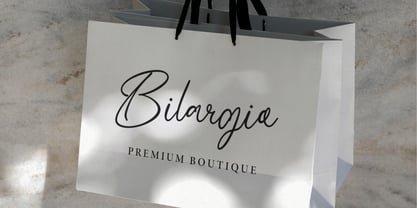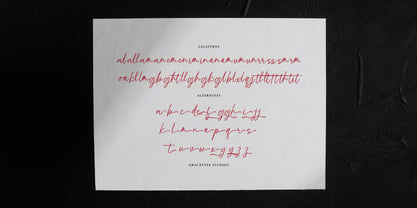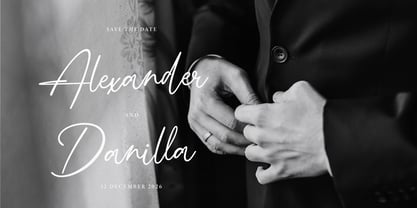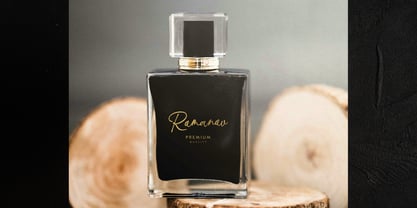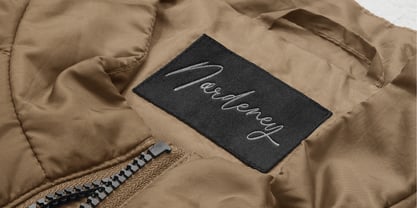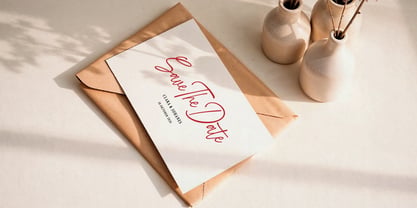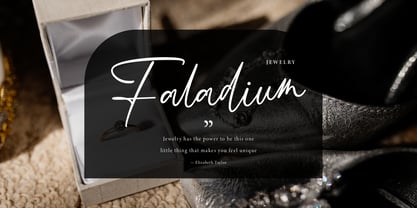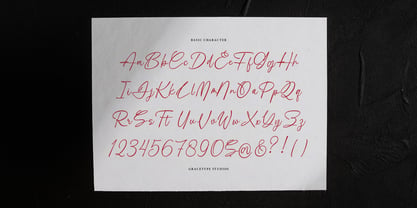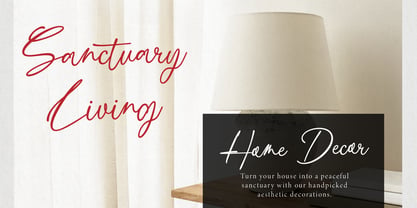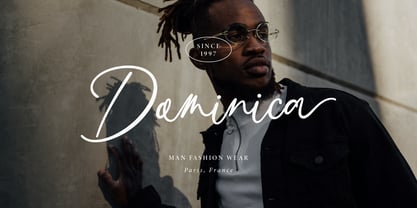
Boudica Perfect
Boudica Perfect | Handwritten Script, from Gracetypestudio, suitable for any projects such as: logos, branding projects, homeware designs, product packaging, mugs, quotes, posters, shopping bags, t-shirts, book covers, name card, invitation cards, greeting cards, label, photography, watermark, special events, and all your other lovely projects that need a Script taste.